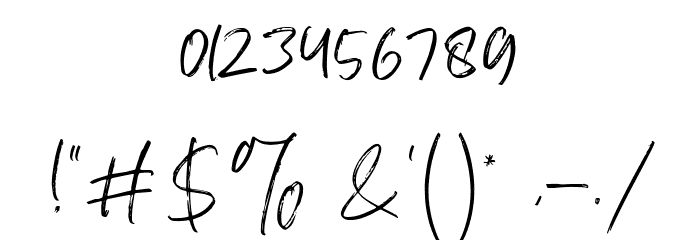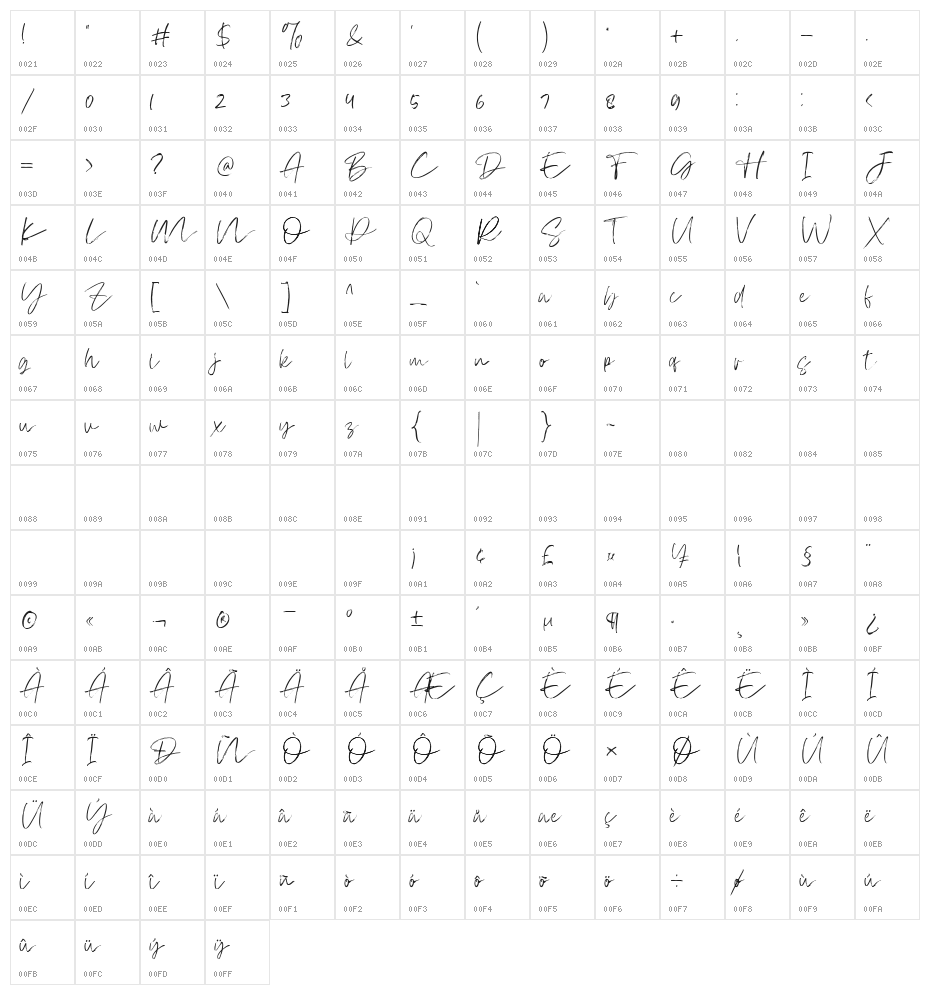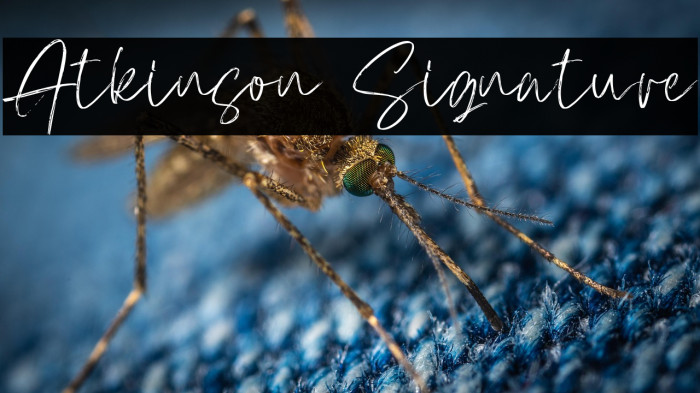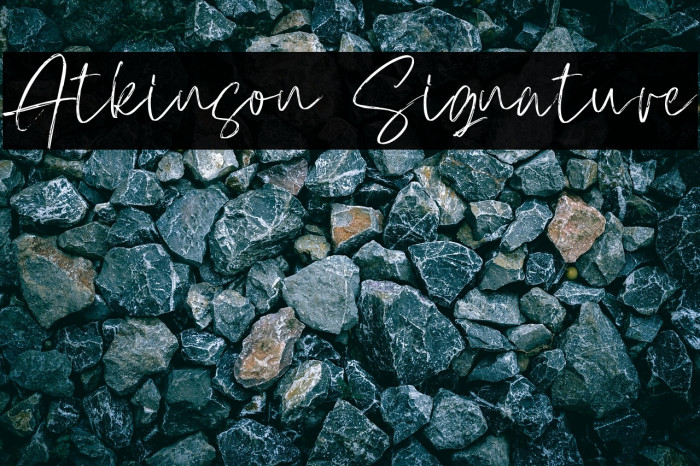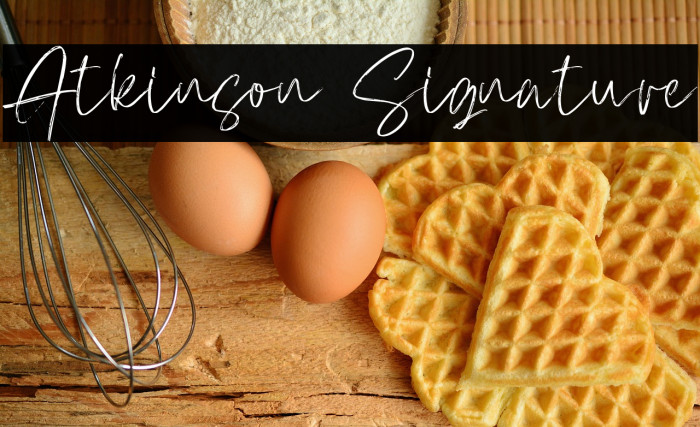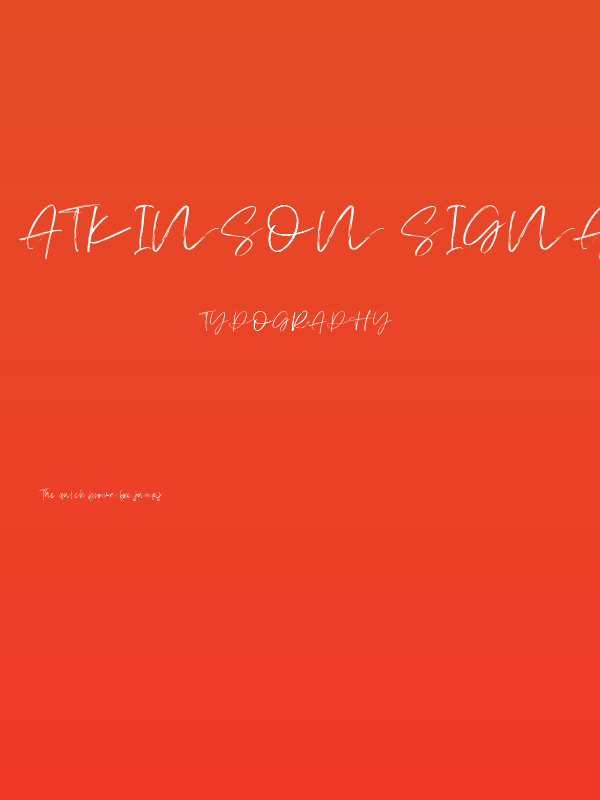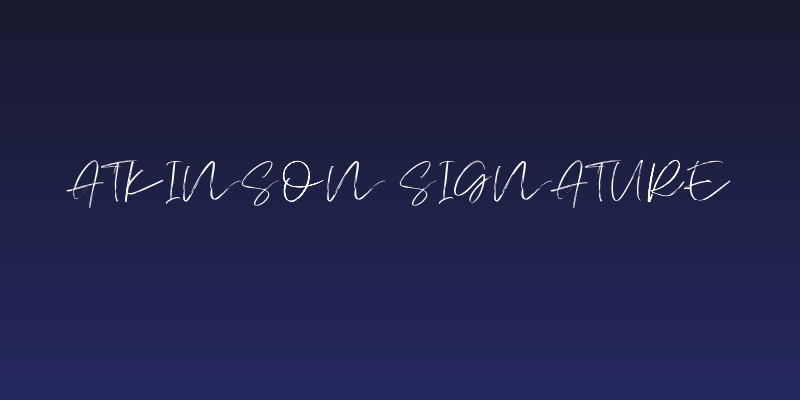
Atkinson Signature Font
Atkinson Signature Description
This font exudes a casual yet elegant handwritten style, characterized by its fluid and natural strokes. The letters are connected in a cursive manner, giving it a personal and intimate feel. The uppercase letters maintain a consistent height, while the lowercase letters vary in size, adding to the organic look. The numerals and special characters are crafted with the same flowing style, ensuring uniformity across all glyphs. The overall appearance is both sophisticated and approachable, making it suitable for a variety of creative projects.